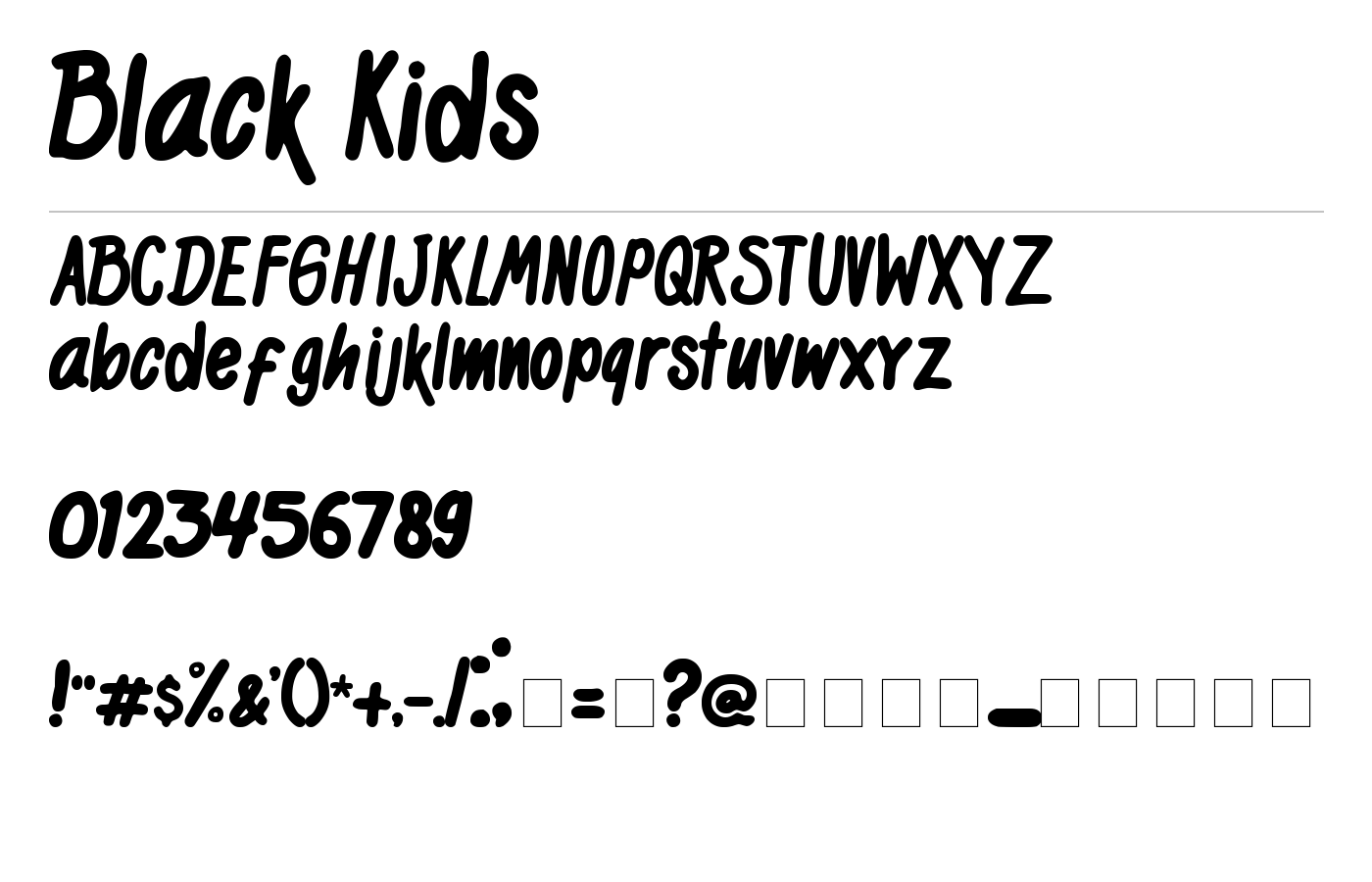
Black Kids is a playful and bold handwritten font with a casual, friendly feel. Its rounded, slightly irregular letterforms and sturdy weight give it a lively, approachable character perfect for informal branding, children's projects, and fun editorial use. This font works well where a personal, energetic touch is desired, especially in headlines and creative designs.
Black Kids Font